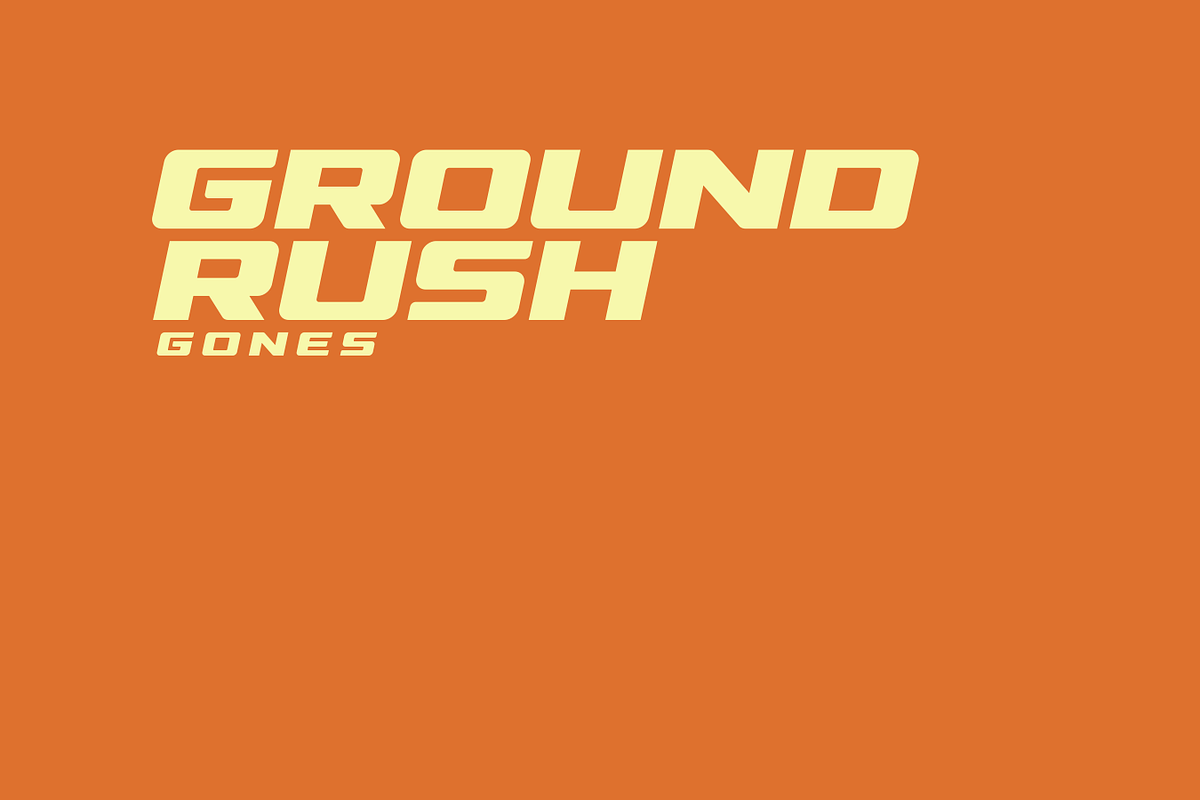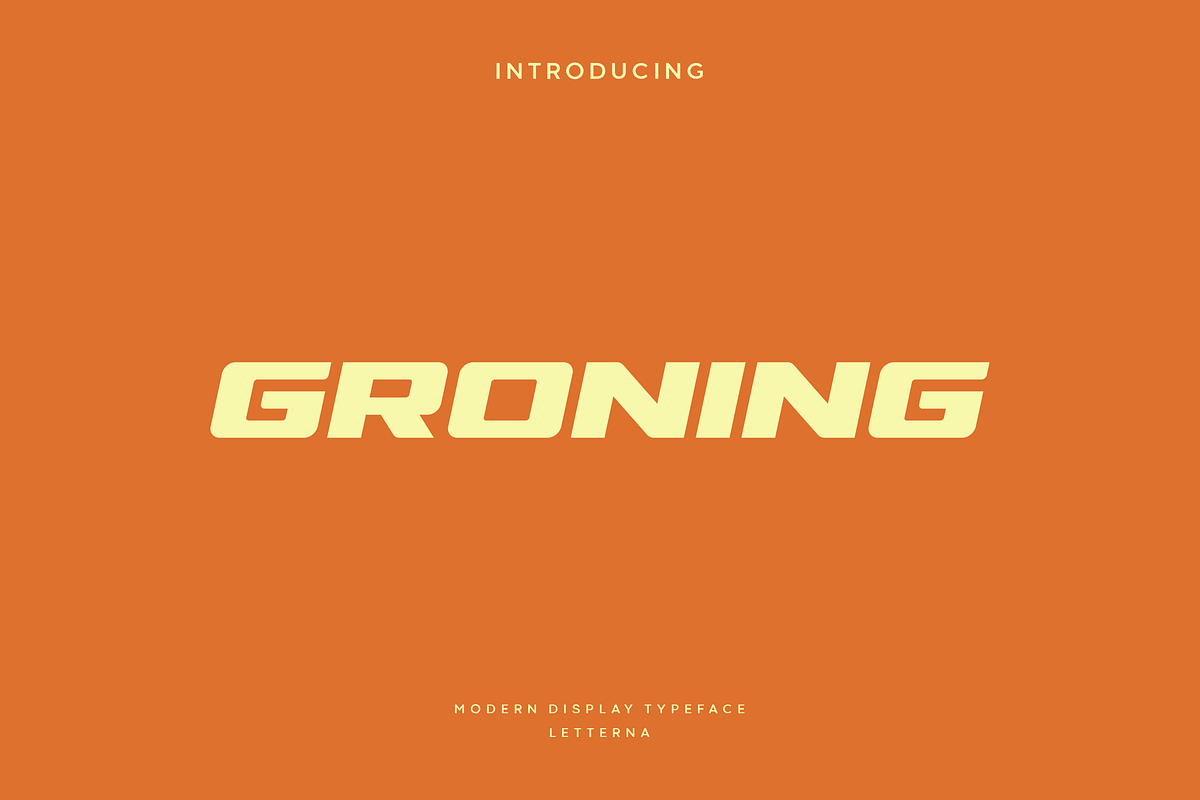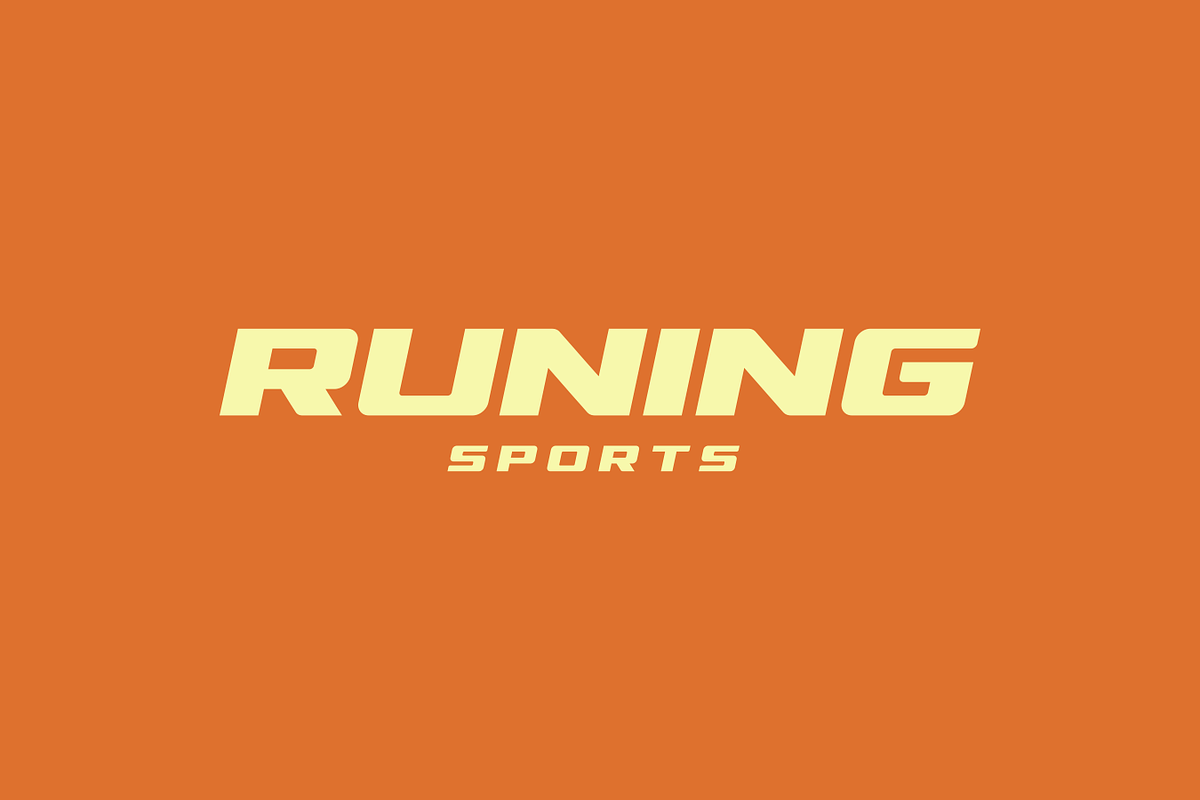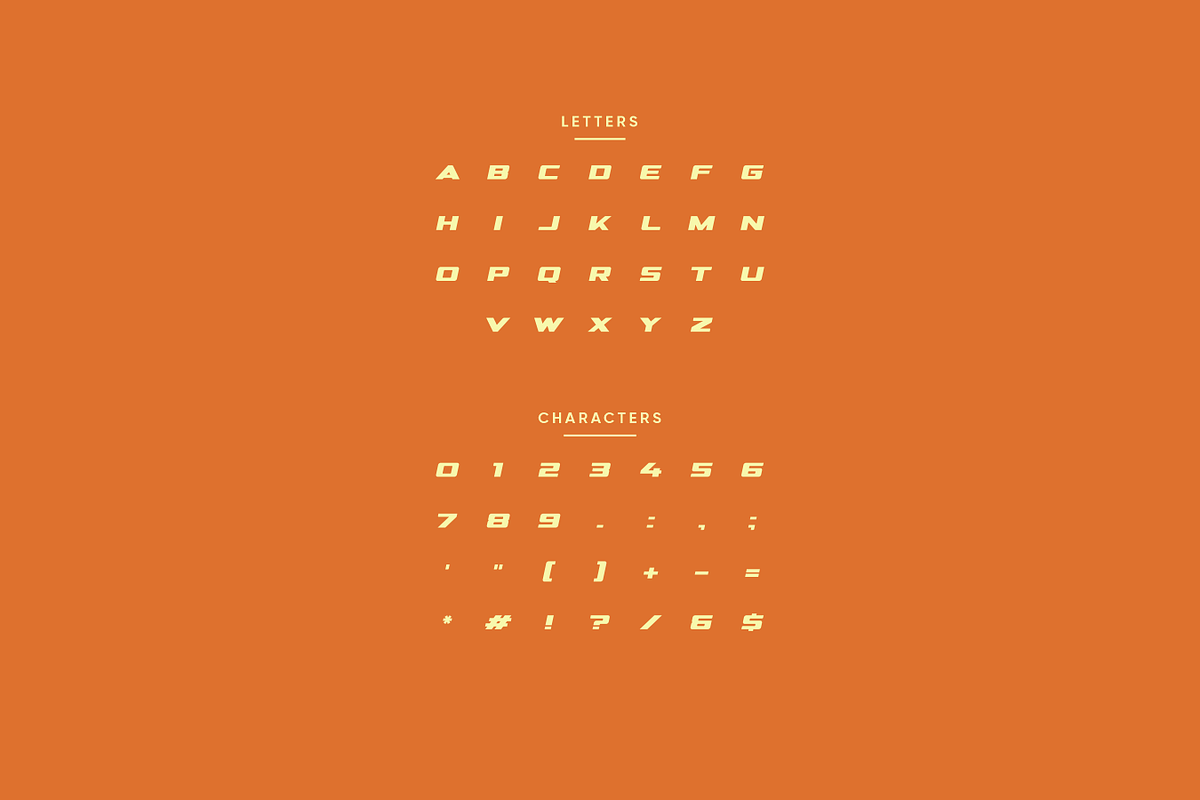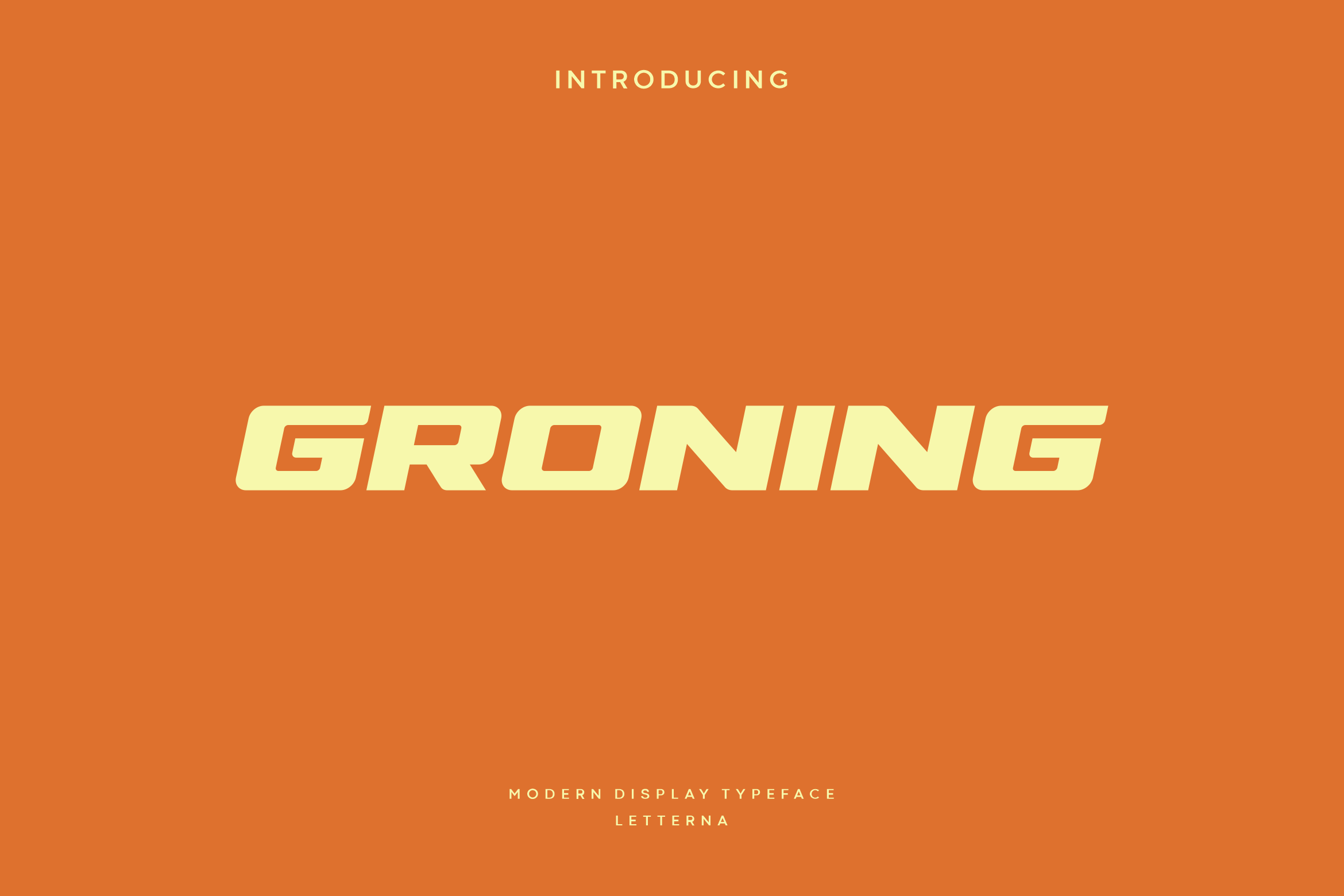
Groning - Modern Sport Typeface
Groning is a sporty look with a strong and sporty feel, perfect for your titles, logos, typography, flyers and various design needs, making your designs more modern and professional. Groning comes with these all caps making them look strong and bold, giving them a bold and modern feel, so enjoy creating any project that will showcase your main idea!